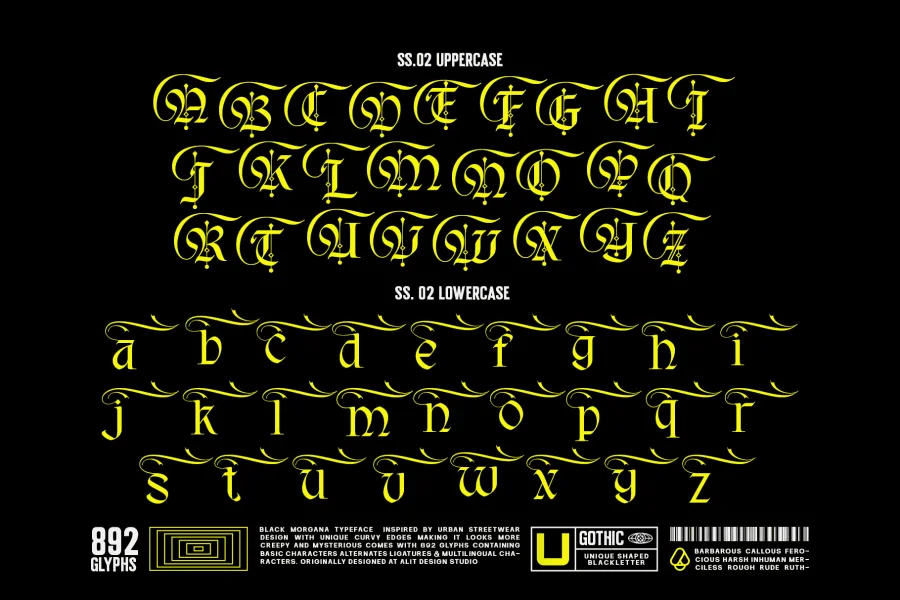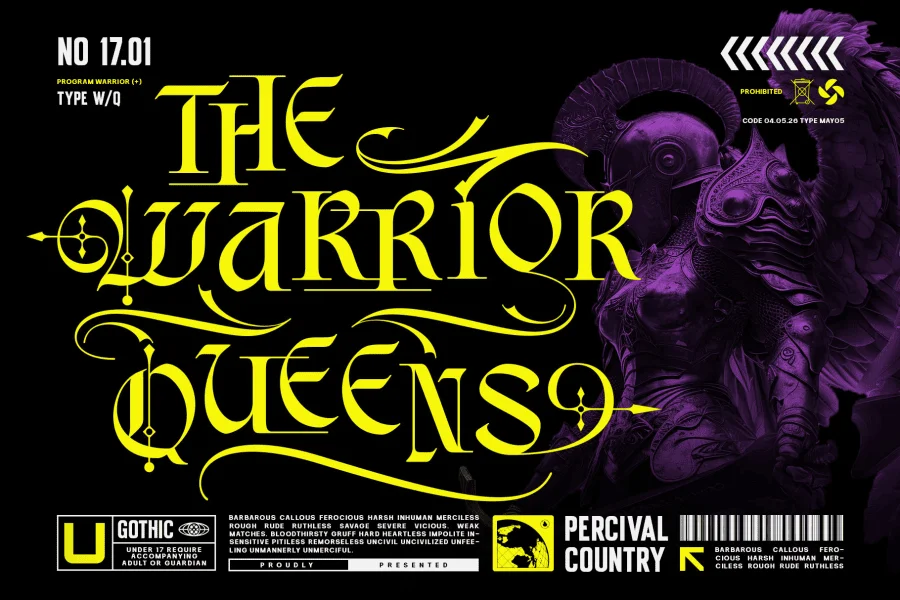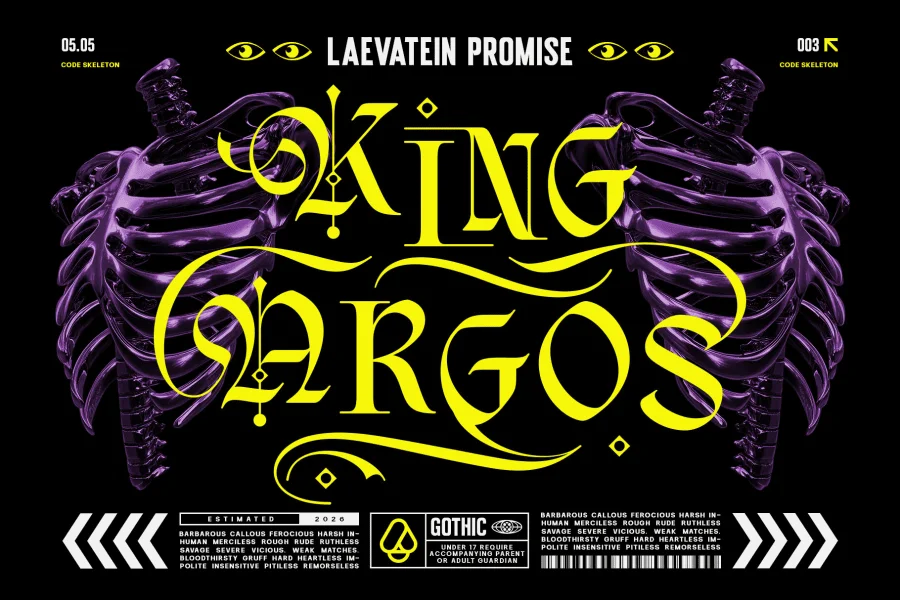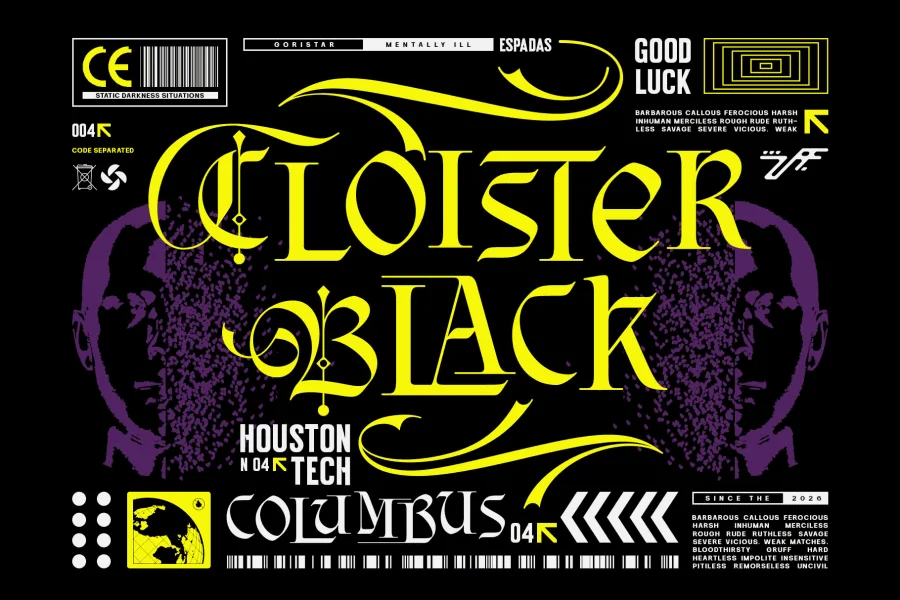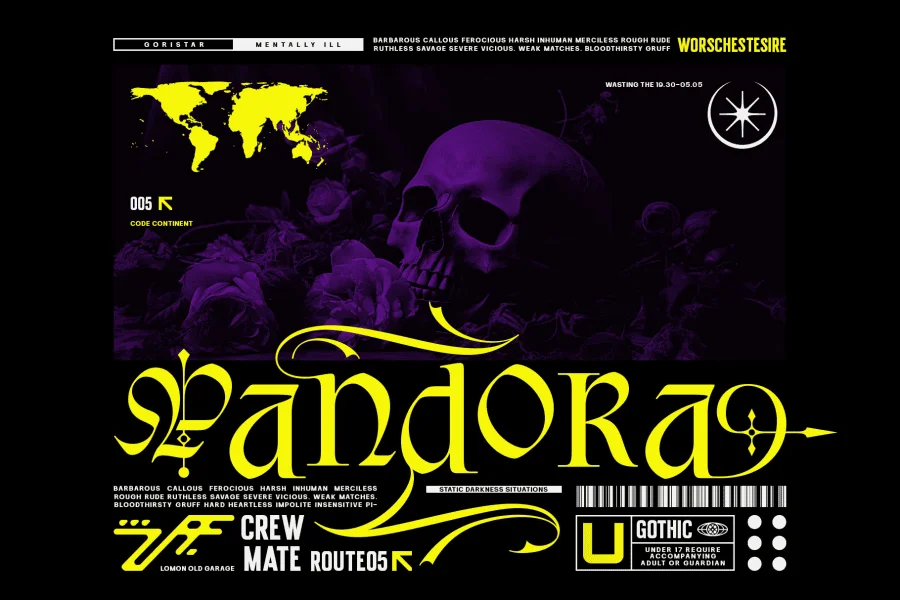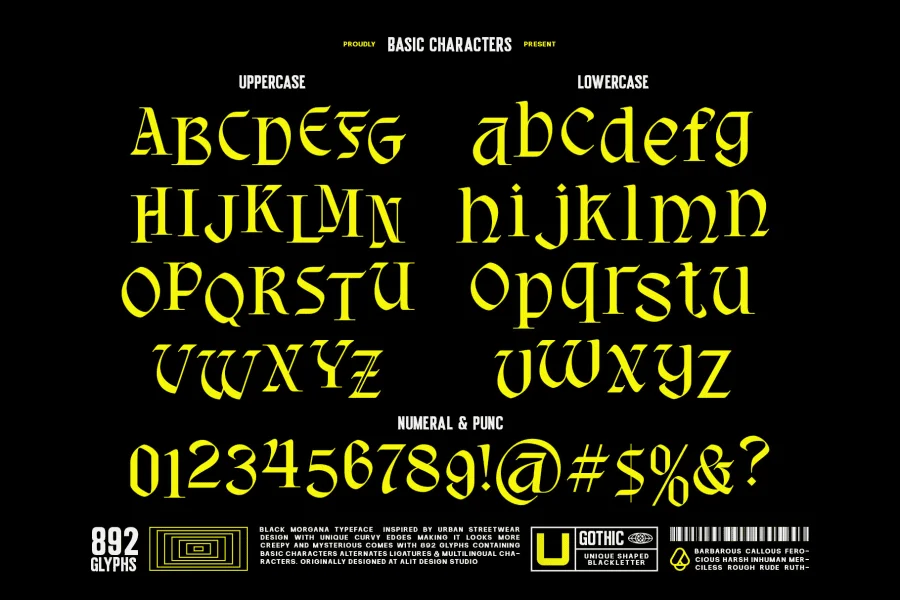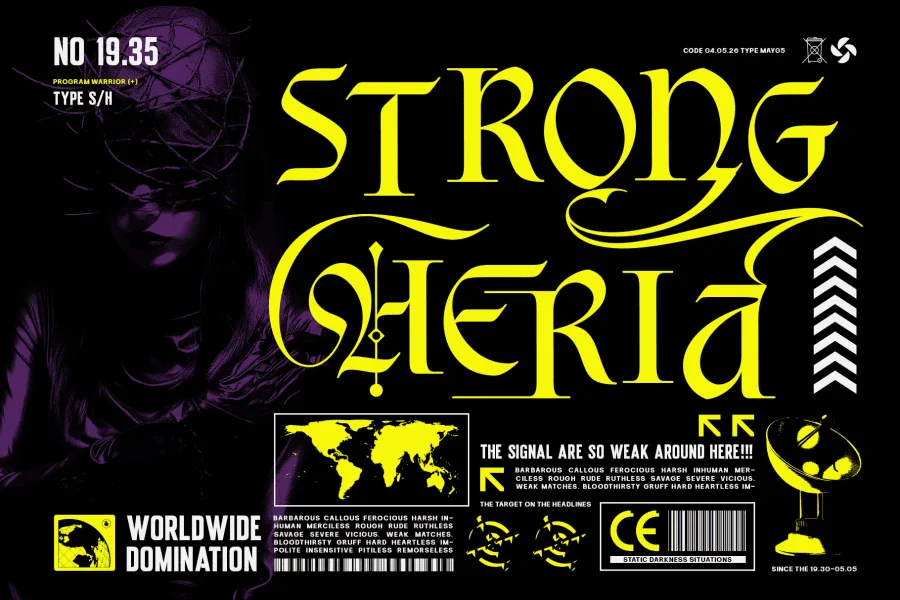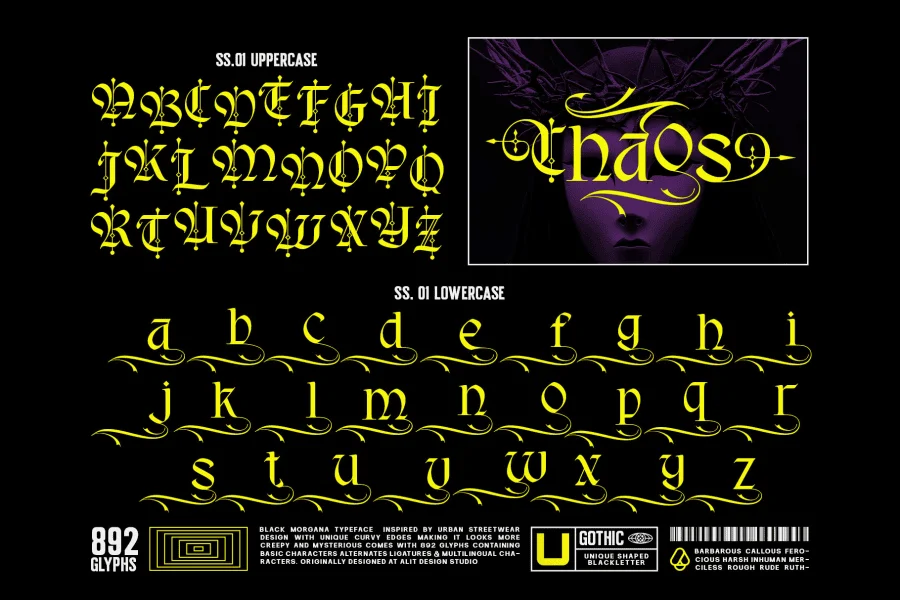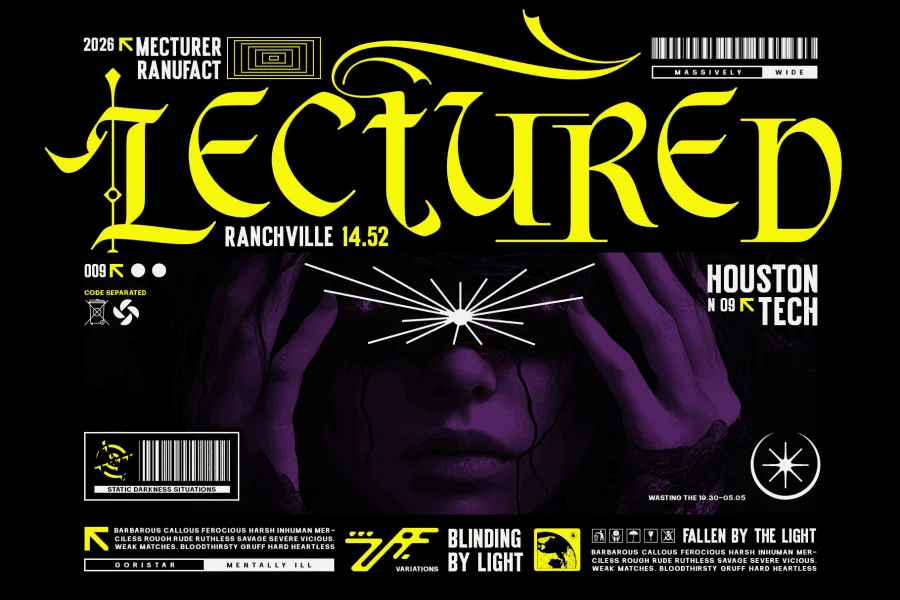
Black Morgana Typeface - Modern Gothic Streetwear
Plunge into the dark, mysterious, and unapologetically bold realm of the Black Morgana Typeface.
Inspired by the raw energy of urban streetwear and the timeless elegance of gothic blackletter typography, Black Morgana is designed to make a statement. This typeface masterfully blends harsh, sharp angles with unique, sweeping, curvy edges, creating a look that is simultaneously aggressive and deeply elegant.
Whether you are designing for a modern apparel brand, a heavy metal album cover, or edgy editorial layouts, Black Morgana delivers a captivating "chaotic beauty" that instantly grabs attention.